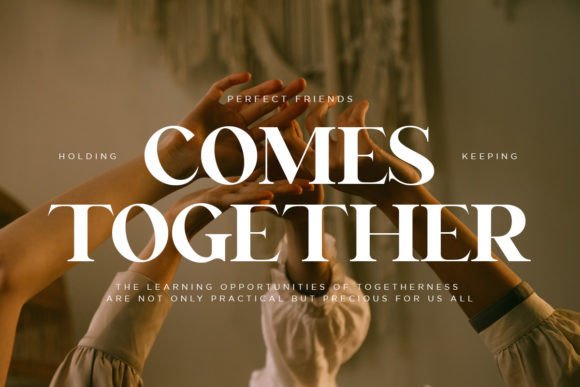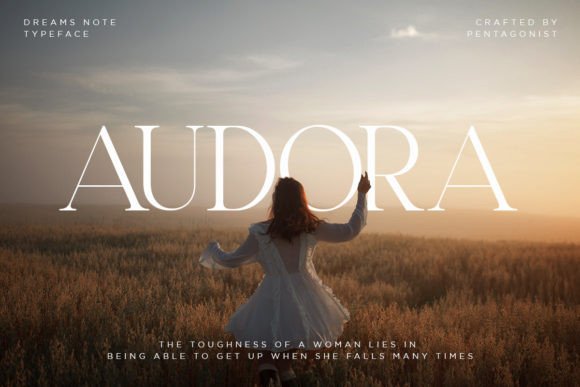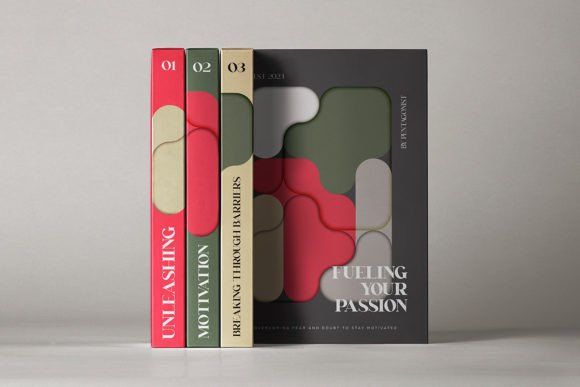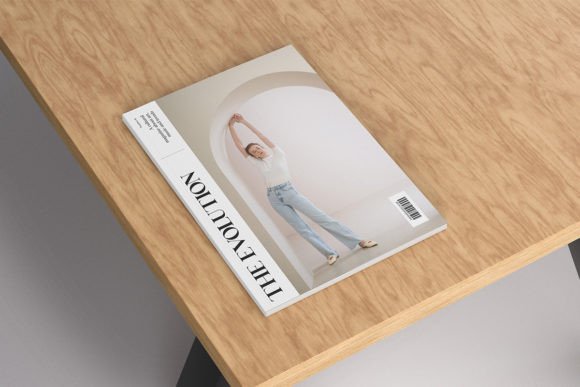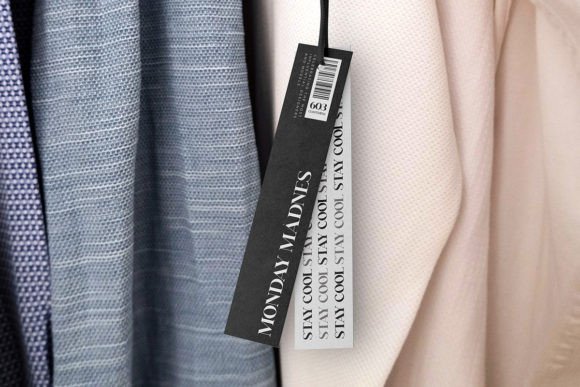
Dreams Note Font: Elevate Your Designs with a Modern Family Serif
Are you tired of using the same old fonts in your designs? Look no further than the Dreams Note Font, a modern family serif that is sure to take your creative projects to the next level. This versatile font family includes 8 font styles, offering a range of options for designers and crafters looking to add a touch of sophistication and creativity to their work.
What is Dreams Note Font?
Dreams Note Font is a modern serif font family that is designed to inspire creativity and elevate your designs. With its clean lines, elegant curves, and balanced proportions, this font is perfect for a wide range of applications, from branding and advertising to packaging and digital media.
Key Features of Dreams Note Font
- Modern Style: Dreams Note Font boasts a modern style that is both fresh and timeless, making it perfect for designers who want to create something new and exciting.
- 8 Font Styles: This font family includes 8 different font styles, offering a range of options for designers to choose from, including regular, bold, italic, and more.
- Creative Ideas: With its unique design elements and creative flair, Dreams Note Font is perfect for projects that require a touch of imagination and innovation.
- Highly Versatile: This font is suitable for a wide range of applications, from digital media and advertising to packaging and print design.
Why Choose Dreams Note Font?
So why choose Dreams Note Font for your next design project? Here are just a few reasons:
- Stand Out from the Crowd: With its unique design and modern style, Dreams Note Font is sure to help your designs stand out from the crowd and grab attention.
- Easily Readable: The clean lines and balanced proportions of this font make it easily readable, even at small sizes.
- Customizable: With 8 different font styles to choose from, you can customize your designs to suit your needs and create a unique look that reflects your brand or personal style.
How to Use Dreams Note Font
Using Dreams Note Font is easy! Here are a few tips to get you started:
- Pair it with Other Fonts: Experiment with pairing Dreams Note Font with other fonts to create a unique and eye-catching design.
- Use it for Headings and Titles: The bold and semi-bold font styles in the Dreams Note Font family are perfect for headings and titles, adding a touch of drama and flair to your designs.
- Try it in Digital Media: With its clean lines and modern style, Dreams Note Font is perfect for digital media, including social media graphics, website headers, and more.
| Font Name | Dreams Note Font |
| Author | Pentagonistudio |
In conclusion, Dreams Note Font is a versatile and modern font family that is perfect for designers and crafters looking to elevate their designs and add a touch of creativity and sophistication. With its 8 font styles, clean lines, and balanced proportions, this font is suitable for a wide range of applications, from branding and advertising to packaging and digital media. So why not give it a try and see the difference it can make in your designs?